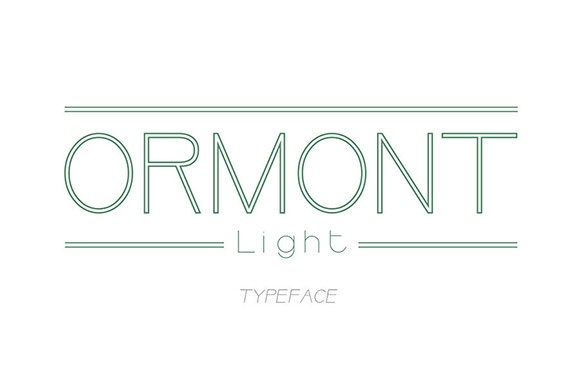
Free Ormont Light font
Download and enjoy this free ormont light font. Cool typeface to showcase your designs in a modern way. Freebies Bug has created this amazing and beautiful free font. This is absolutely cool font so you can easily make world-class designs.